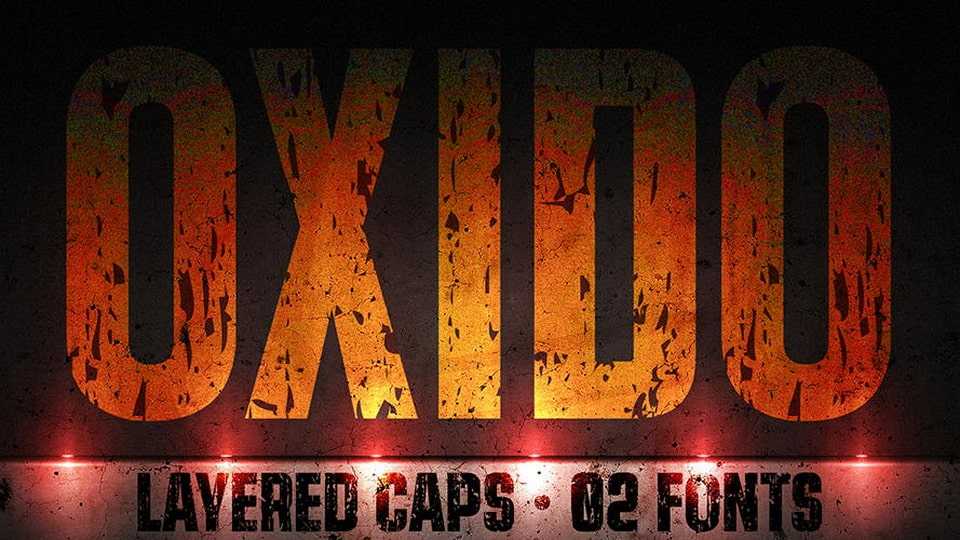
Download Oxido Eroded font, born from a powerful idea: to capture the relentless imprint of time. The roughness of rust, the industrial toughness, and the beauty of imperfection merge into a typeface
Designer: Fernando Haro